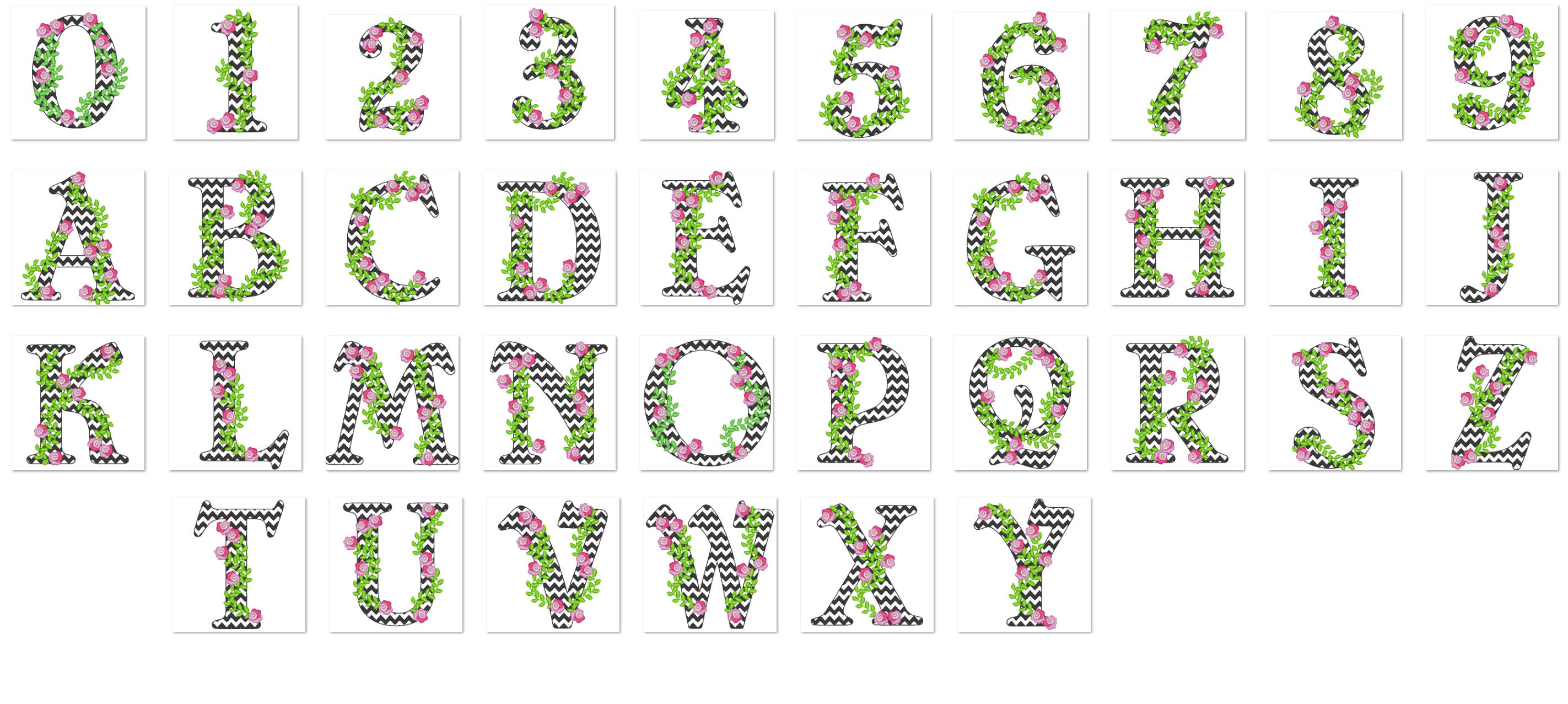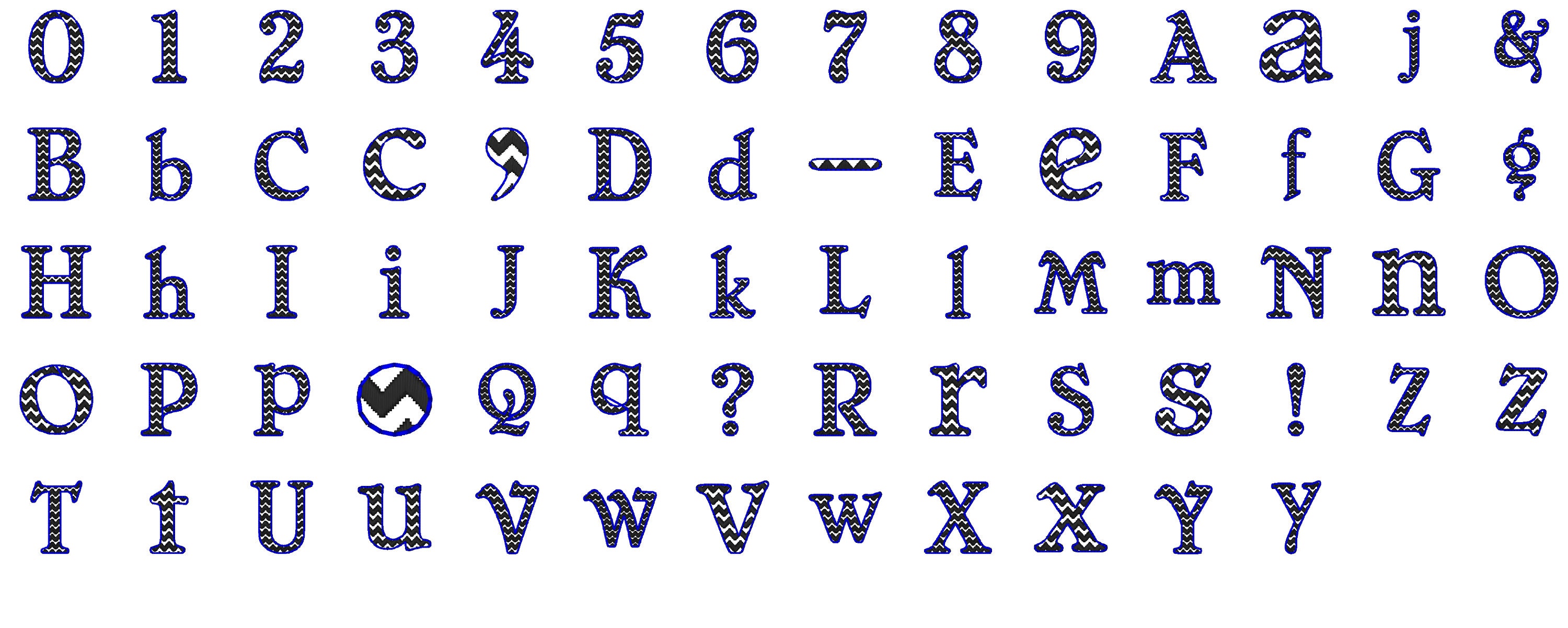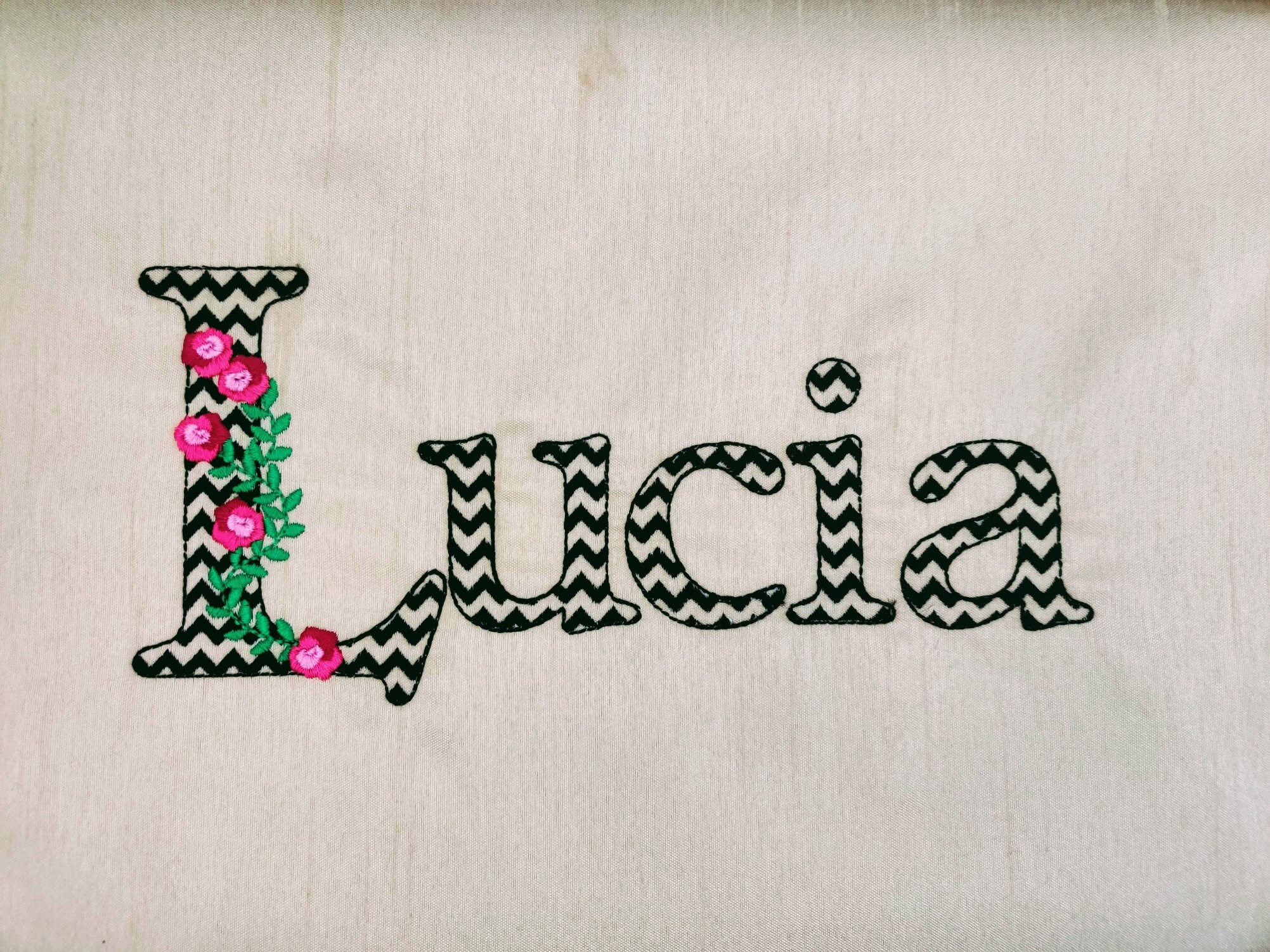
Mini roses and chevron RIC RAC Font light sketch outline and mini roses machine embroidery font alphabets letters
This is quick stitch designs, they look like like laces, the background fabric look through. Stunning effect. Chevron lines are part of embroidery.
Uppercase letters with roses in sizes
Uppercase and lower case letters, as well numbers and punctuation RIC RAC Font